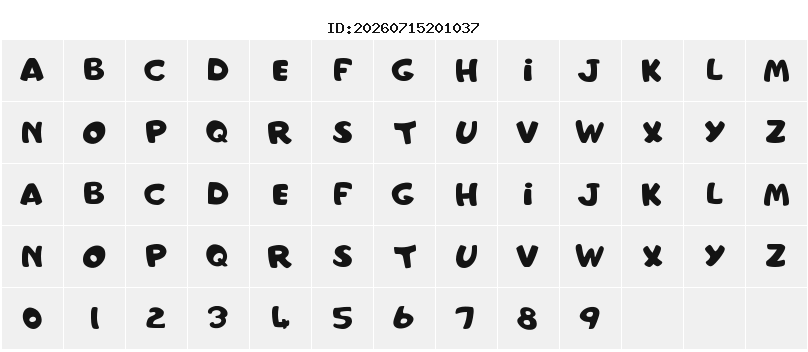
• Font Name: AutoToy font
• Full Font Name: AutoToy font
AutoToy font.ttf is a modern, elegant sans-serif font designed for ultimate readability and visual harmony. Perfect for branding, headlines, web design, and print materials.